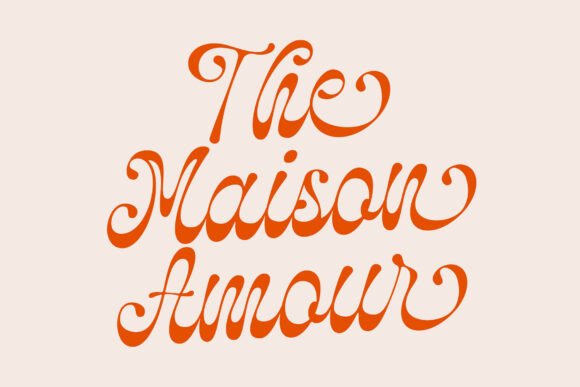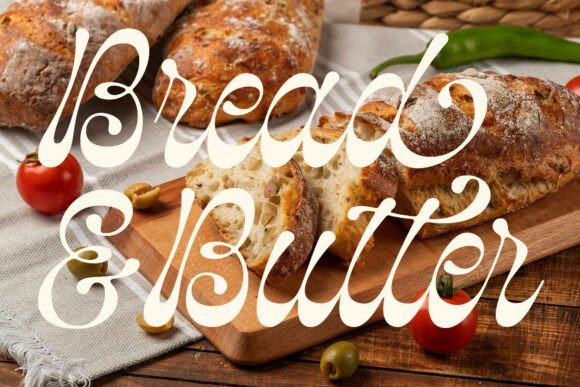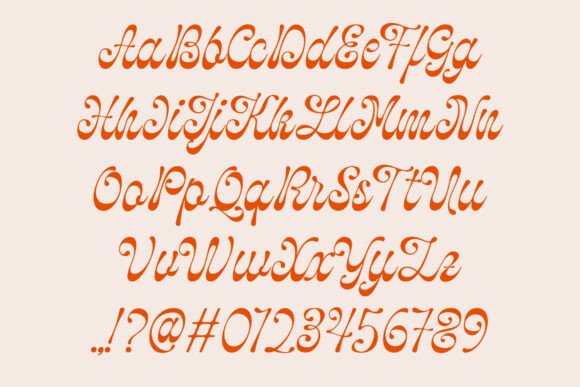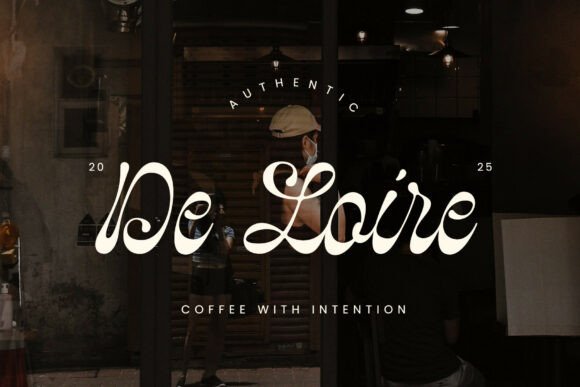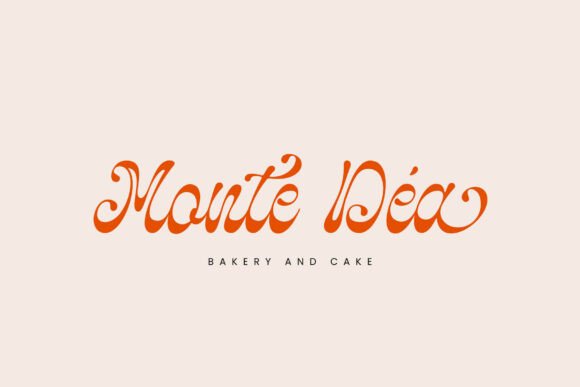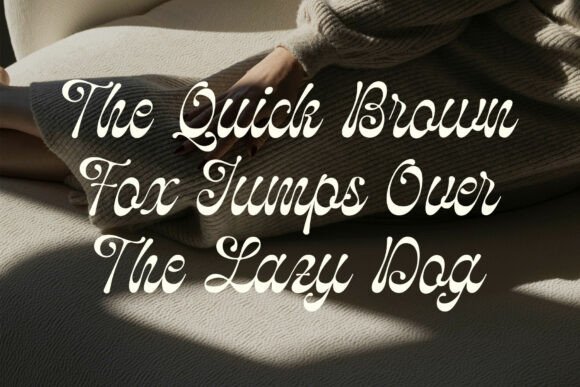
Introduction to Monaris Font
Have you ever stared at a blank canvas, feeling the weight of creative pressure as you try to bring your vision to life? You know the feeling – the blank page stares back at you, taunting you to make the perfect first move. That’s when you realize, the right font can be the difference between a mediocre design and a masterpiece. Enter Monaris Font, a game-changing modern script typeface that’s about to revolutionize your creative project.
Monaris Font is more than just a design resource – it’s a key to unlocking your full creative potential. Its elegant curves and refined swashes bring a touch of luxury and sophistication to any design, making it perfect for branding, editorial design, and even social media graphics. And the best part? With its transparent background, you can easily customize and adjust it to fit your unique vision.
Key Features of Monaris Font
- High-quality font design ideal for creative projects and design resources
- Monaris Font offers a transparent background, making it perfect for use on images or backgrounds
- Unique, modern design aesthetic that sets it apart from other free fonts
- Perfect for use in logos, branding materials, and other design elements where a clean, minimalist look is desired
Honest Review: Monaris Font
I recently stumbled upon the Monaris Font, and I must say it’s a fantastic addition to any designer’s toolkit. The high quality of this font is immediately noticeable, with clean lines and a sleek aesthetic that’s perfect for any creative project.
- ✨ The transparent background makes it easy to layer and combine with other design elements.
- ✨ The font’s versatility allows it to be used in a wide range of applications, from digital to print.
- ⚠️ The font may not be suitable for extremely small text sizes, as it can become difficult to read.
- ⚠️ Some users may find the font’s aesthetic too modern or trendy, which may not appeal to everyone’s taste.
Overall, I’m impressed with the Monaris Font and would highly recommend it to anyone looking for a high-quality, versatile font for their creative project. While it may have some limitations, its strengths far outweigh its weaknesses, making it a valuable addition to any designer’s toolkit.
Monaris Font
The Monaris Font is a high-quality design resource perfect for any creative project. With a transparent background, this versatile font can be used in a variety of applications.
Tips for Getting the Most Out of Monaris Font
To get the most out of Monaris Font, try using it with a transparent background to create a unique and eye-catching design. You can also experiment with different font sizes and styles to add visual interest to your project.
Common Use Cases for Monaris Font
Monaris Font is perfect for a variety of creative projects, including:
- Branding